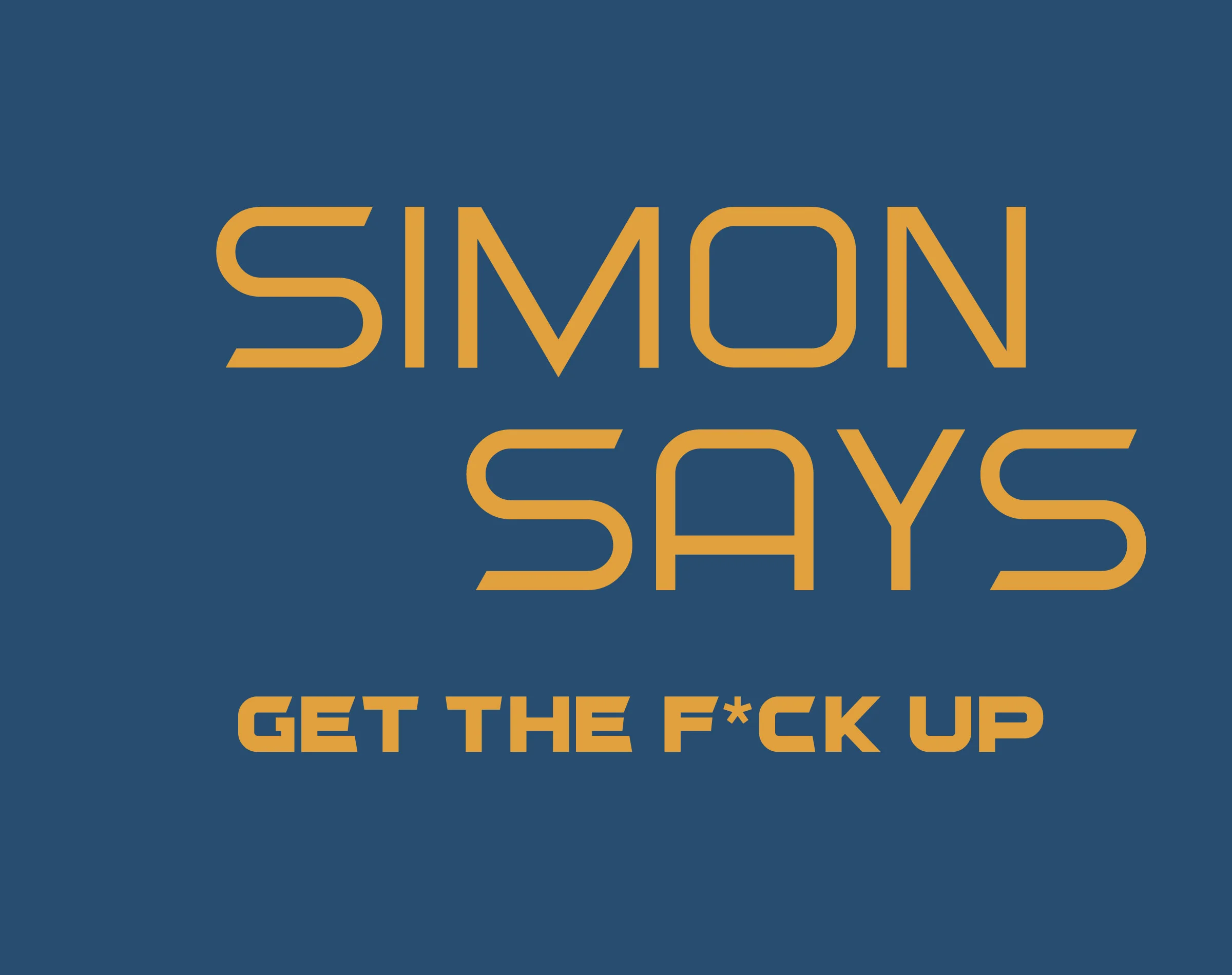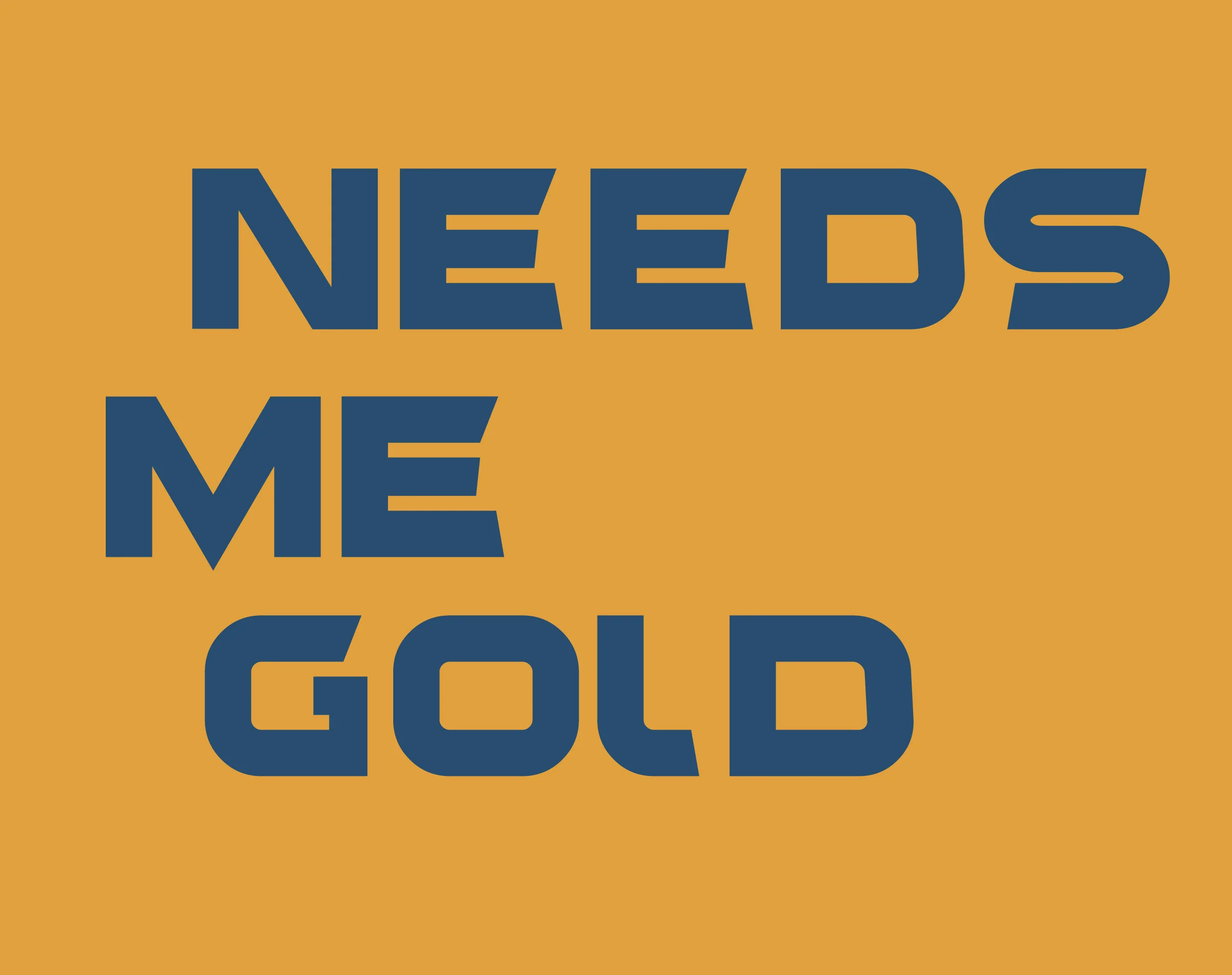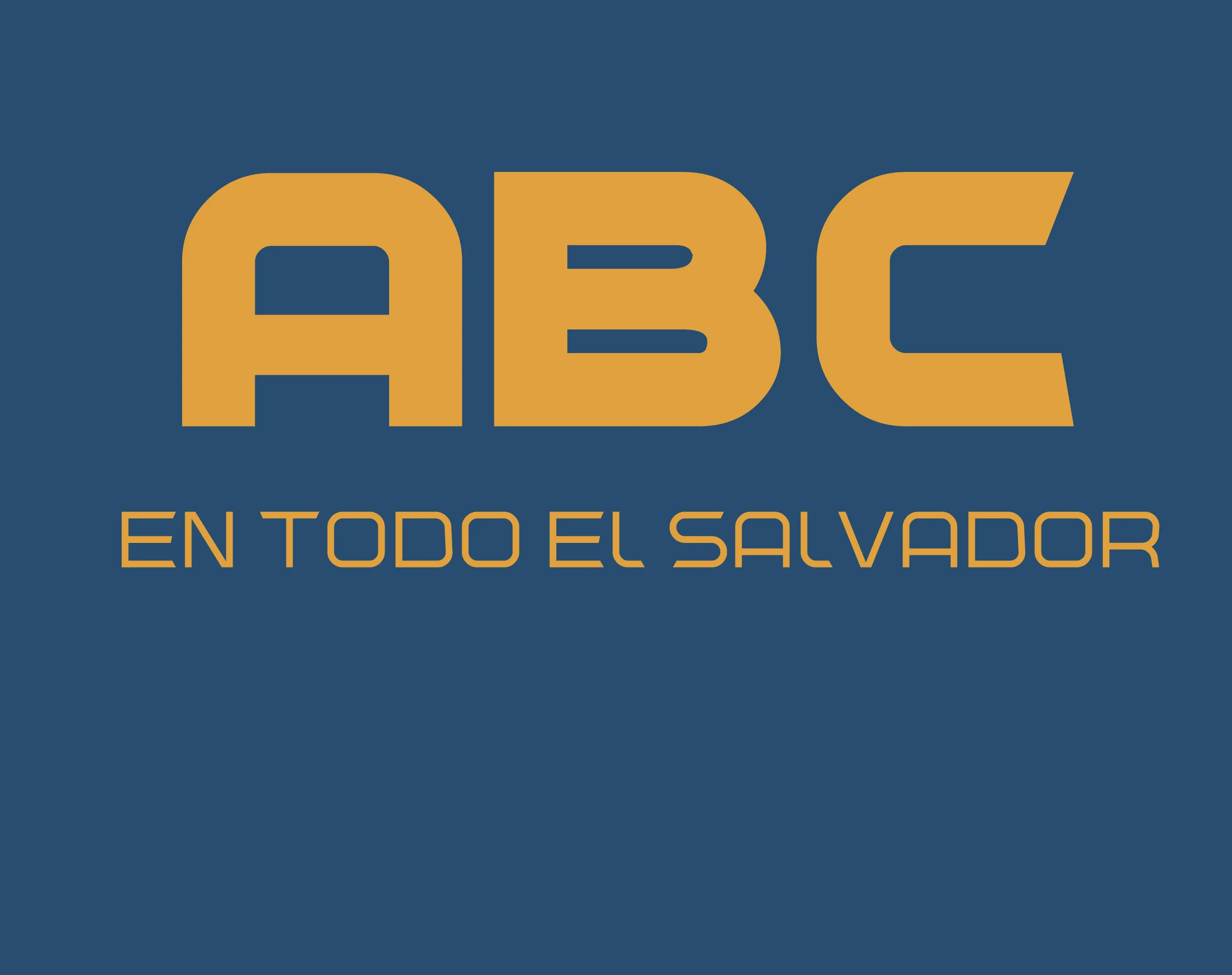
Outlier
Outlier is a FREE multipurpose capital font created in two distinct weights — a structural Bold and a clean, ultra-thin Light. Built to give logos, titles, and layouts a sharp modern edge, Outlier includes symbols and foreign characters.